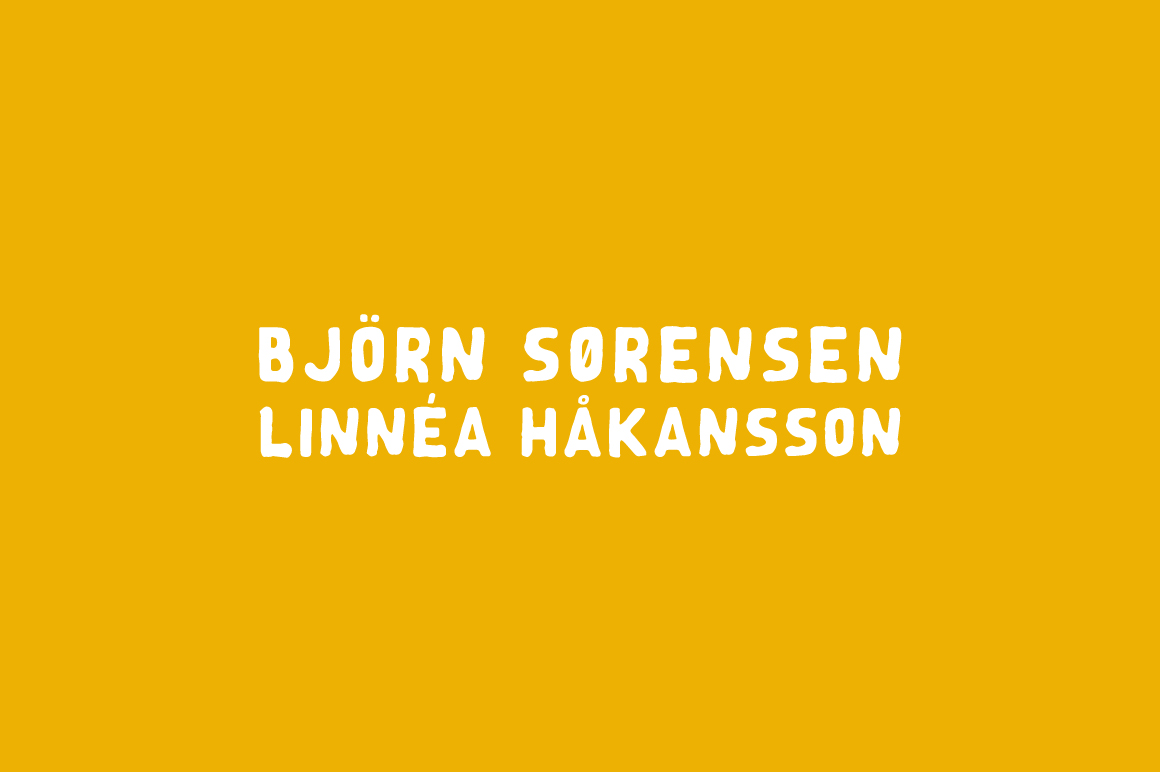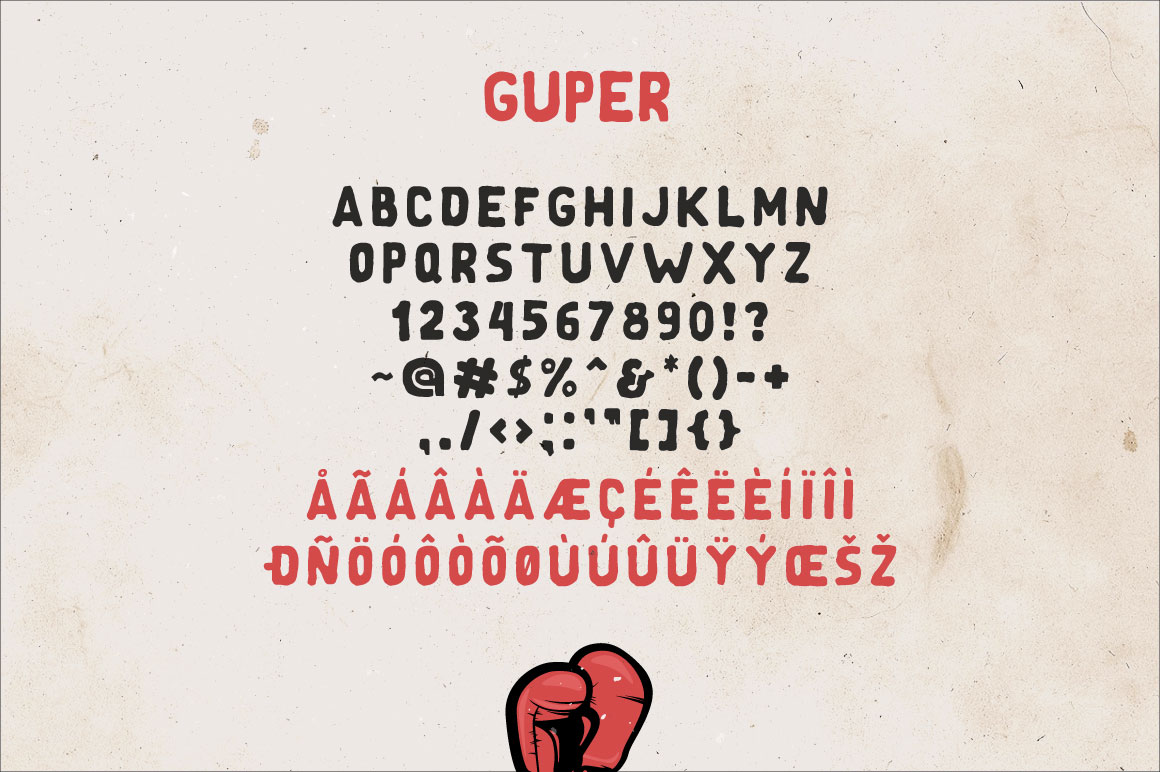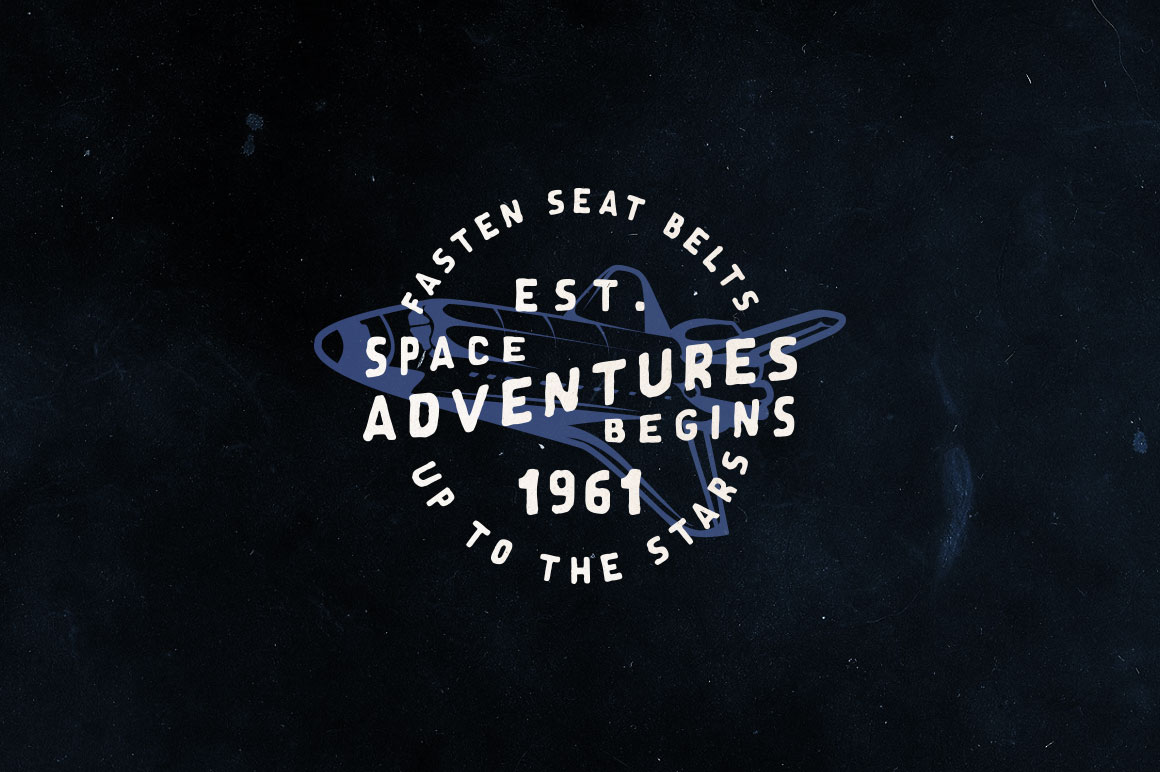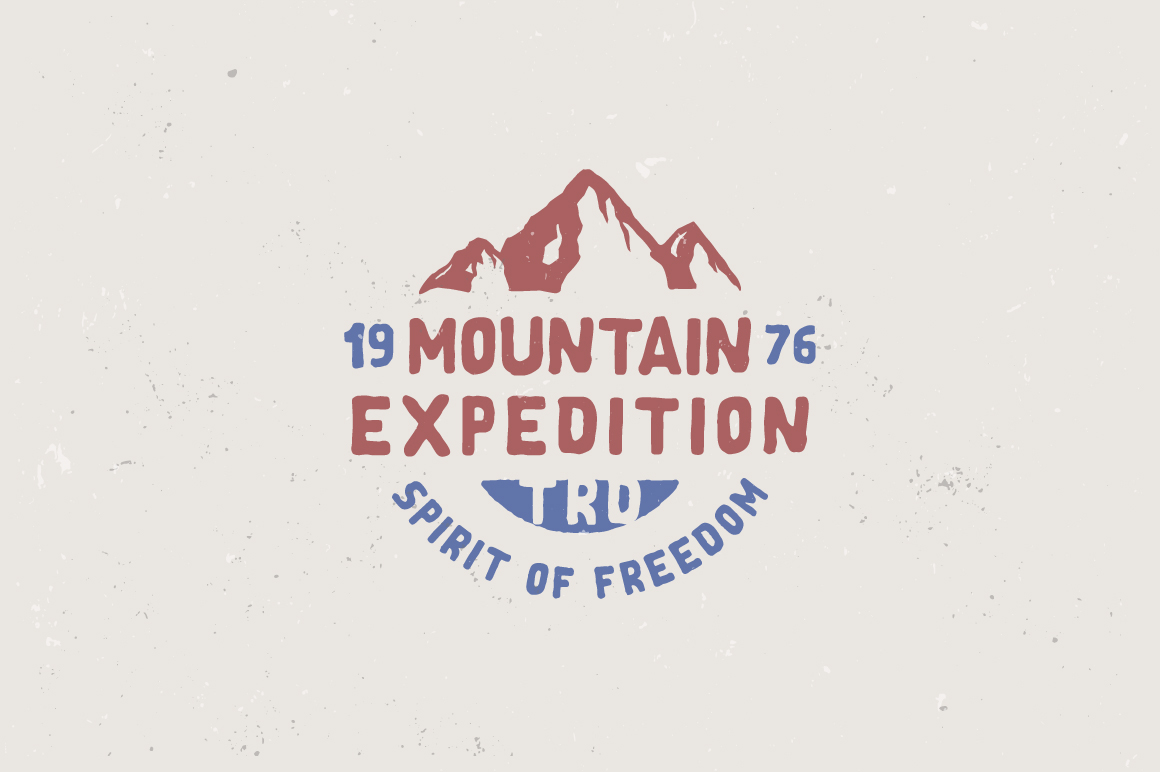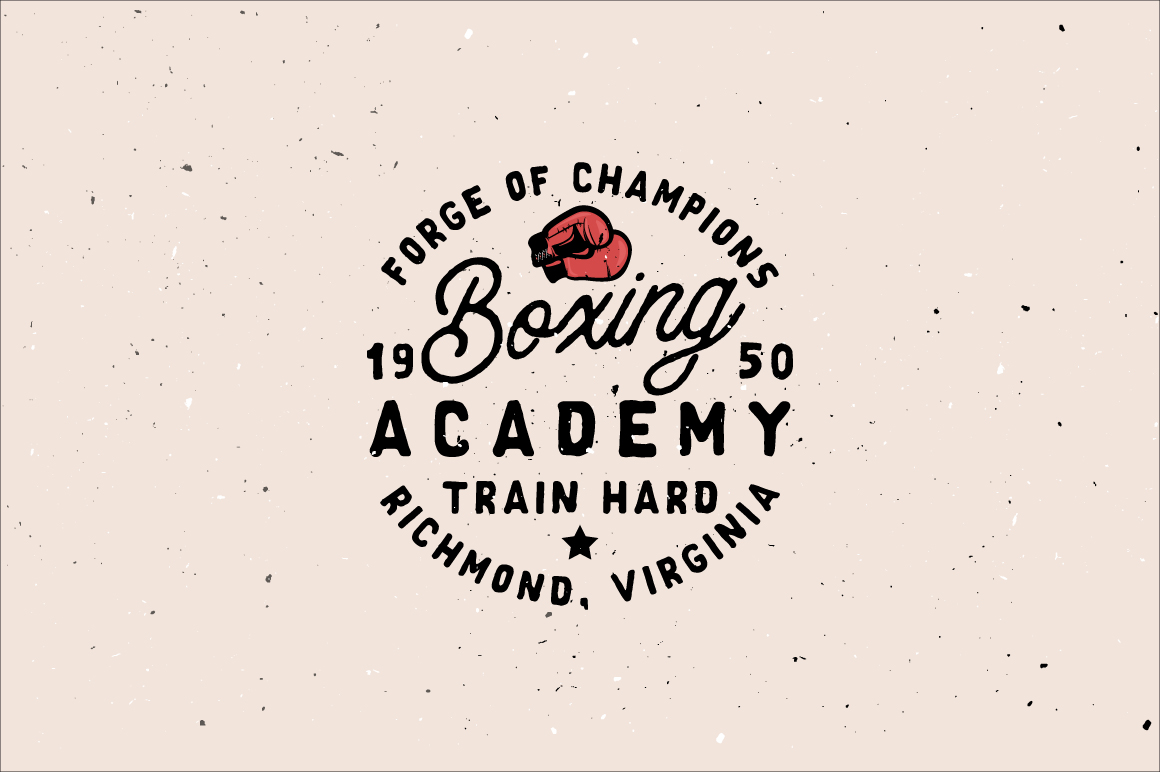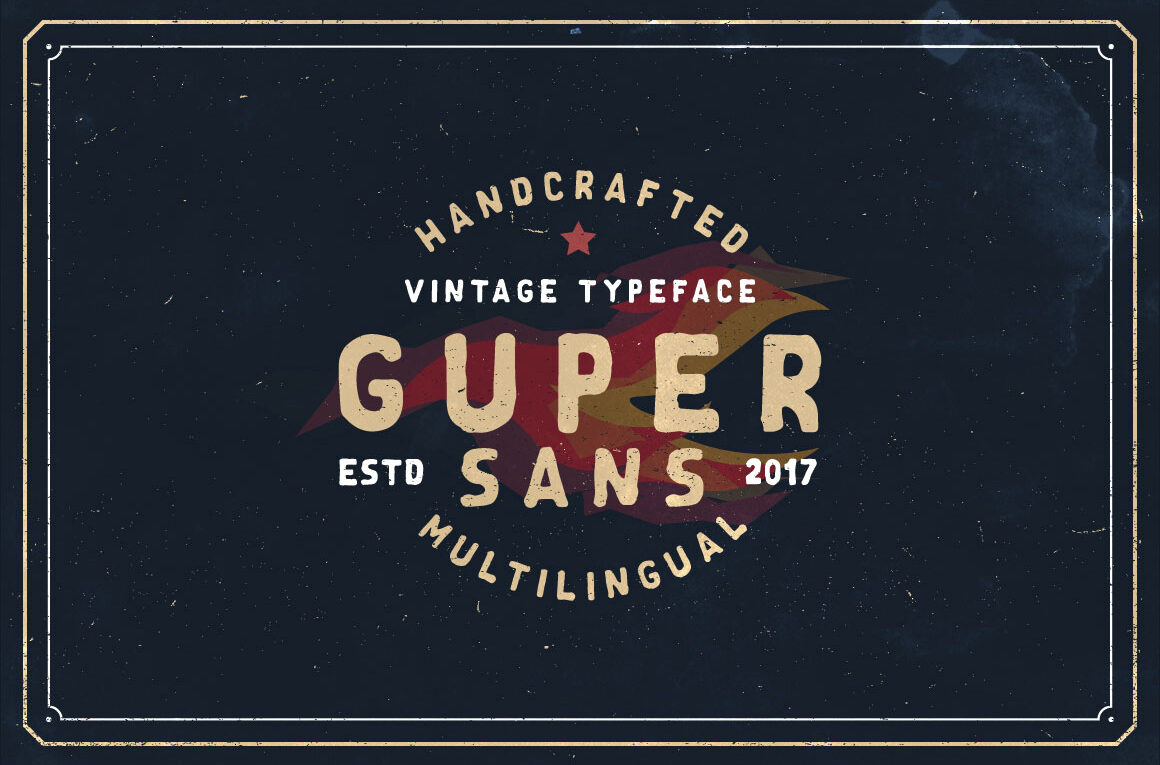
Guper Sans Font: A Handcrafted Vintage Typeface for Unique Designs
Are you looking for a font that can add a touch of nostalgia and retro charm to your designs? Look no further than Guper Sans, a handcrafted vintage typeface inspired by badges, labels, vintage logo designs, and retro typography designs. With Guper Sans, you can create traditional old-fashioned designs that are sure to stand out.
What is Guper Sans?
Guper Sans is a carefully crafted font that is perfect for designers and crafters who want to add a unique touch to their work. The font is inspired by the classic designs of the past, with a focus on badges, labels, and vintage logos. The result is a font that has a distinctive, handcrafted feel that is sure to add character to any design.
Uses for Guper Sans
Guper Sans is a versatile font that can be used for a wide range of design projects. Some of the most popular uses for the font include:
- Logo designs: Guper Sans is perfect for creating unique and eye-catching logos that have a vintage feel.
- T-shirt prints: The font is ideal for creating custom t-shirt designs that have a retro vibe.
- Motivational and inspirational quotes: Guper Sans is a great choice for creating typography designs that feature motivational and inspirational quotes.
- Cards and flyers: The font is perfect for creating custom cards and flyers that have a unique and eye-catching design.
- Event posters: Guper Sans can be used to create event posters that have a vintage feel.
Features of Guper Sans
Guper Sans has a range of features that make it a great choice for designers and crafters. Some of the key features of the font include:
- A-Z symbols: The font includes all uppercase and lowercase letters, making it perfect for creating custom designs.
- 0-9 Numbers: Guper Sans includes all numbers, making it easy to create designs that feature numerical information.
- All necessary punctuation symbols: The font includes all necessary punctuation symbols, making it easy to create designs that feature text.
- Multilingual support: Guper Sans supports multiple languages, making it a great choice for designers who work with clients from around the world.
Tips for Using Guper Sans
Here are a few tips for using Guper Sans to get the best results:
- Use it in small sizes: In the opinion of the font creator, Guper Sans looks best in small sizes, particularly as a background text in logos.
- Experiment with different colors: Guper Sans can be used with a range of different colors to create unique and eye-catching designs.
- Pair it with other fonts: The font can be paired with other fonts to create interesting and dynamic designs.
- Use it for handwritten text effect: If you need to create a handwriting font effect with a slight rustic effect, Guper Sans is ideal for this purpose.
Guper Sans is a unique and versatile font that is perfect for designers and crafters who want to add a touch of nostalgia and retro charm to their designs. With its handcrafted vintage feel and range of features, Guper Sans is a great choice for a wide range of design projects. Whether you’re creating logos, t-shirt prints, or typography designs, Guper Sans is sure to help you stand out.